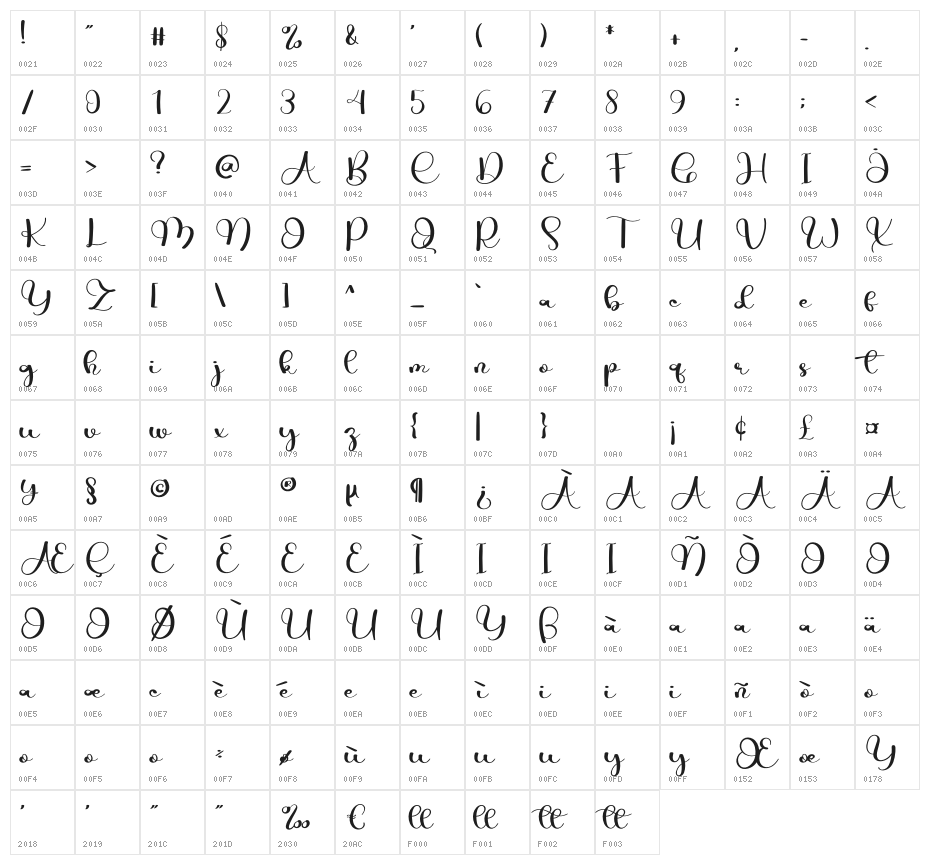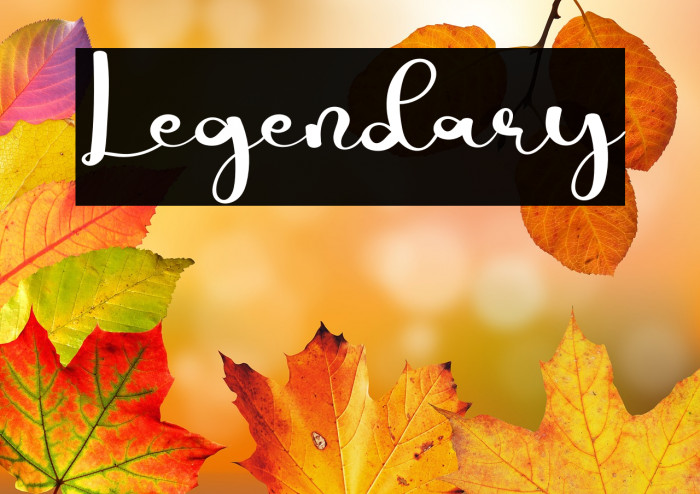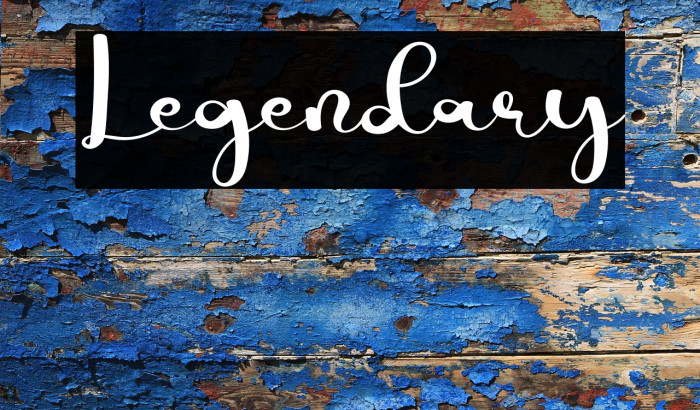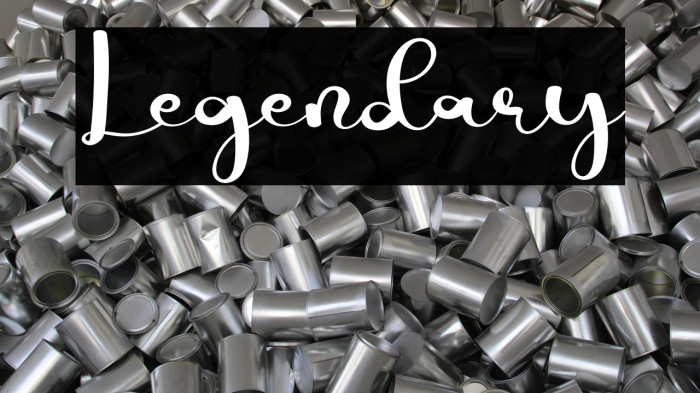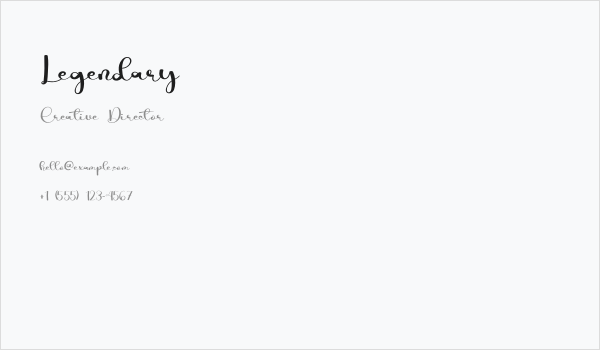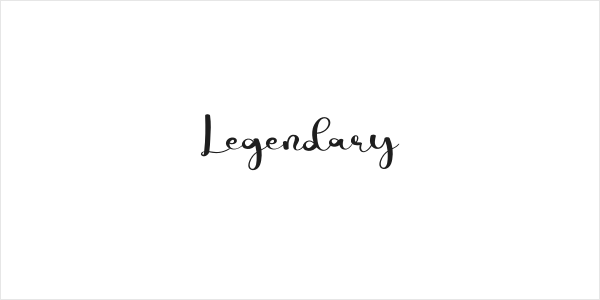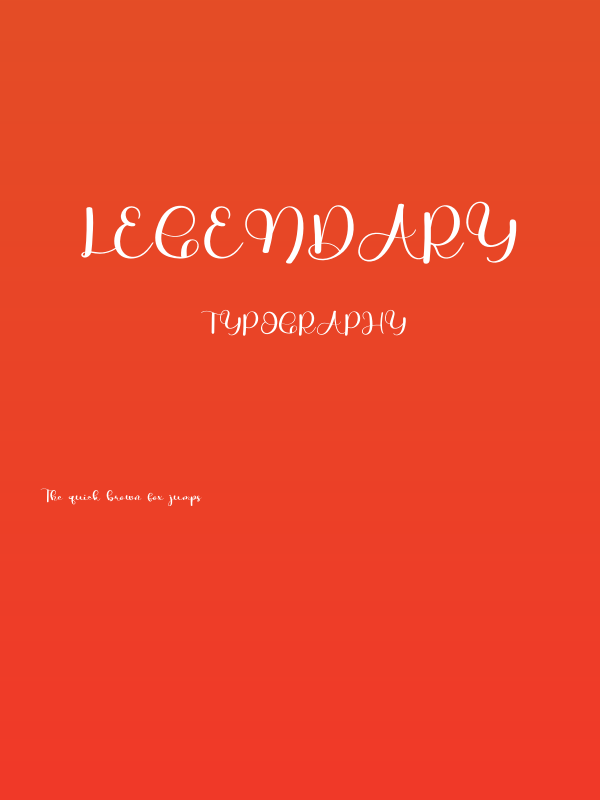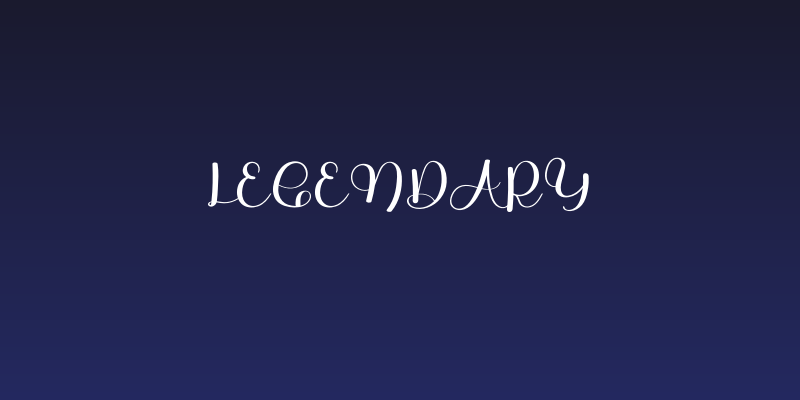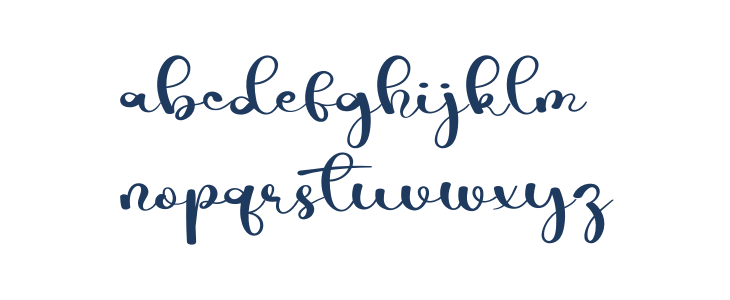
Legendary Font
Legendary Description
This font features a playful and elegant script style, characterized by its flowing and interconnected letterforms. The uppercase letters exhibit a graceful, looping design, while the lowercase letters maintain a consistent, smooth flow. The numerals are distinct and maintain the same whimsical style, ensuring readability. Special characters are creatively integrated, adding to the font's charm. The overall appearance is both sophisticated and approachable, making it suitable for a variety of creative applications.
Use CaseLogos, Invitations, Decorative text
Proposed ProjectsIdeal for wedding invitations, greeting cards, branding projects, and social media graphics.